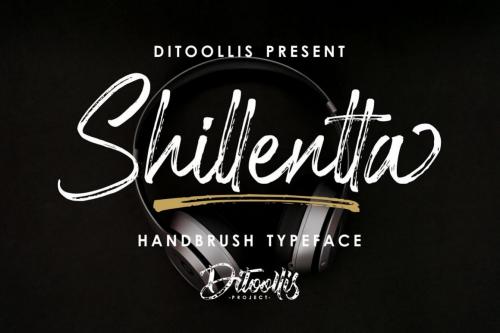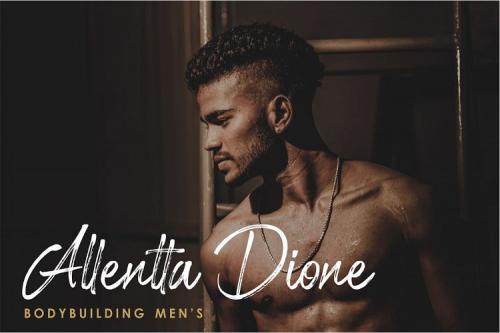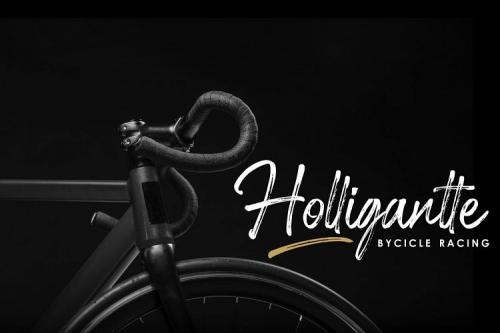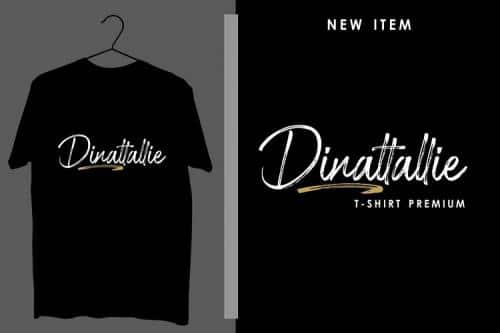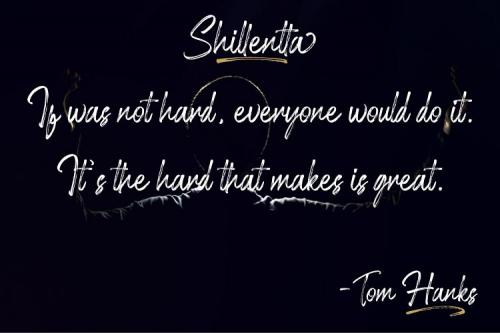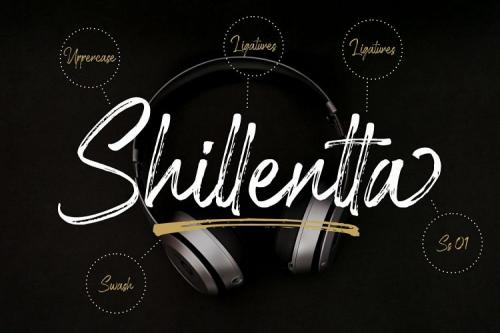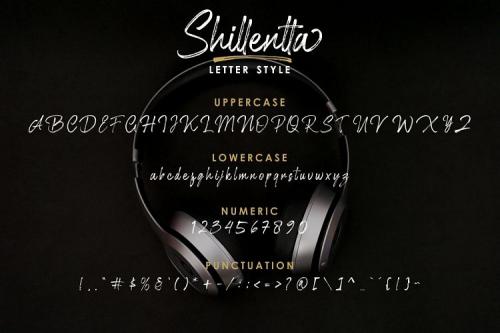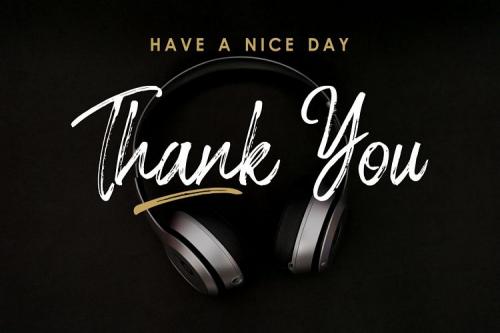
Shillentta Brush is great for logotype, Branding Design, Logo Design, Digital Lettering Arts, T-Shirt/Apparel, Poster, Magazine, Signs, Advertising Design, wedding invitation and any hand lettered needs.